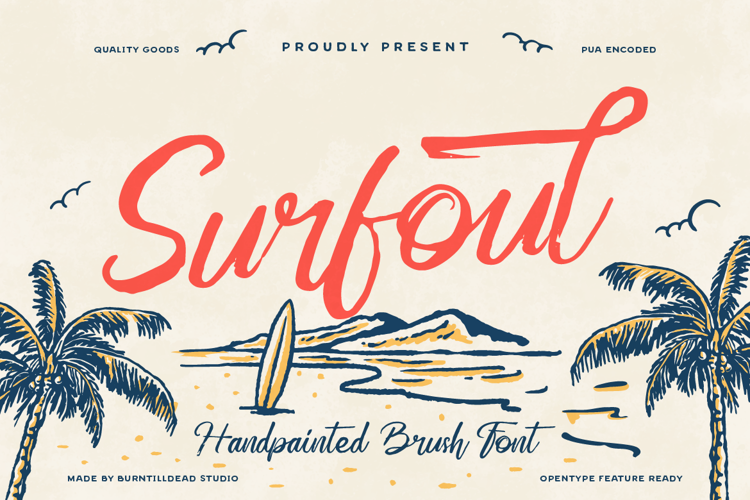
Surfoul is a handpainted brush font inspired by summer vibes and beach life. Perfect for posters, logos, branding, and designs that need a bold and playful handwritten look.